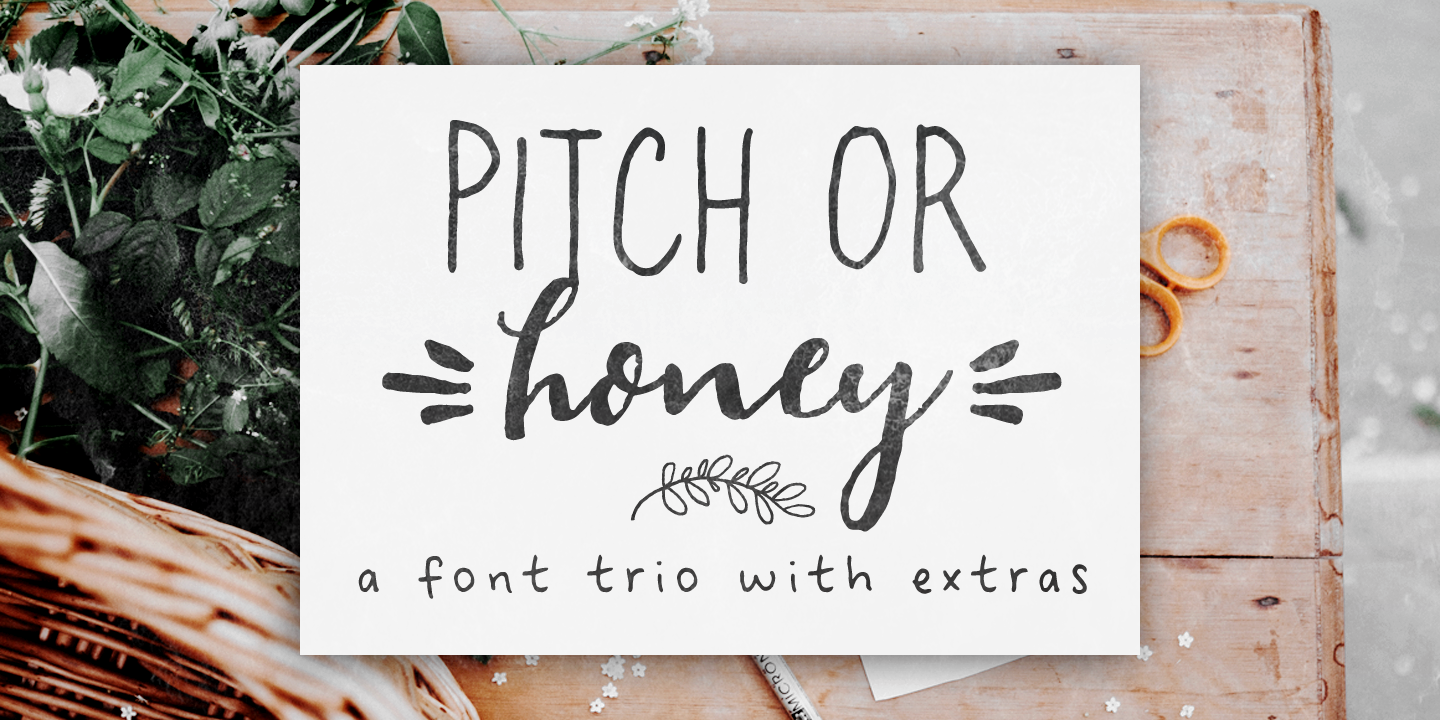
This versatile display font is perfect for artisanal honey branding, natural sweetener packaging, organic food marketing, beekeeping business logos, golden nectar campaigns, rustic farm store signage, healthy lifestyle promotions, and sweet design projects that celebrate nature's liquid gold and authentic craftsmanship.
Pitch Or Honey Font is exciting because it embodies natural sweetness with its flowing letterforms that drip like golden honey while maintaining the rich depth of organic craftsmanship. The font delivers artisanal sophistication that captures the essence of pure, unprocessed goodness.
The Pitch Or Honey Font family includes regular and textured versions with honey-themed decorative elements, bee symbols, and natural ornaments, providing designers with comprehensive tools for creating golden typography that sweetens every application.
Ready to sweeten your brand naturally? Pitch Or Honey Font Free Download offers designers golden letterforms that flow with natural sweetness and artisanal authenticity. This delicious typeface combines organic aesthetics with professional functionality, making it ideal for honey producers, natural food brands, and farm-to-table campaigns. Whether you're designing honey jar labels, organic food packaging, or beekeeping educational materials, this font delivers naturally sweet appeal. The organically crafted characters feature honey-smooth curves while maintaining excellent readability across natural applications. Perfect for businesses in honey production, organic foods, natural sweeteners, and artisanal farming that celebrate pure ingredients and sustainable practices. The font's honeyed construction creates memorable brand recognition that resonates with natural food enthusiasts worldwide. Each letter showcases deliberate sweetness that mirrors the golden perfection of nature's finest nectar. Download today and harvest sweet success in your creative projects with this premium display font that transforms ordinary text into extraordinary expressions of natural goodness and the golden allure of Pitch Or Honey Font Free Download authenticity.